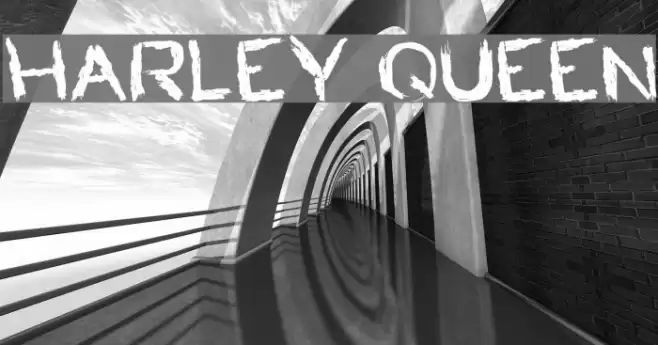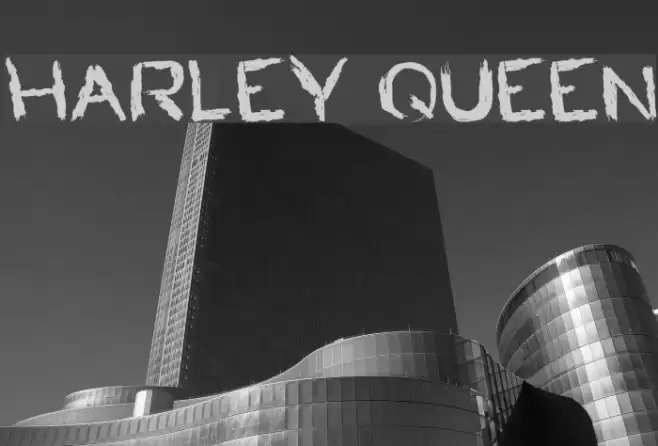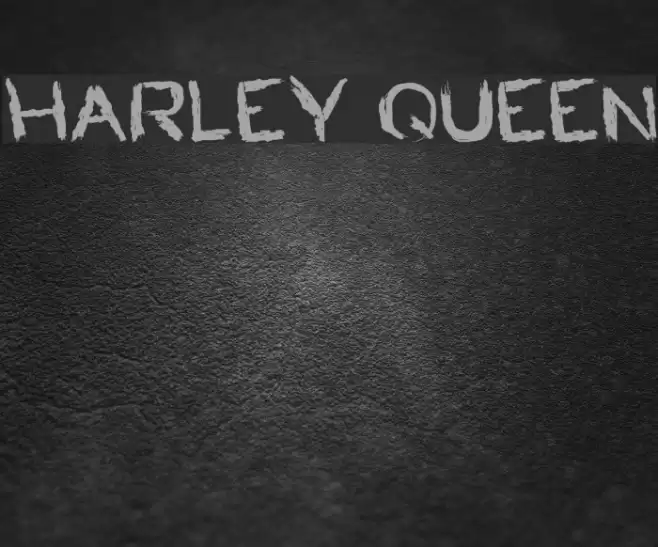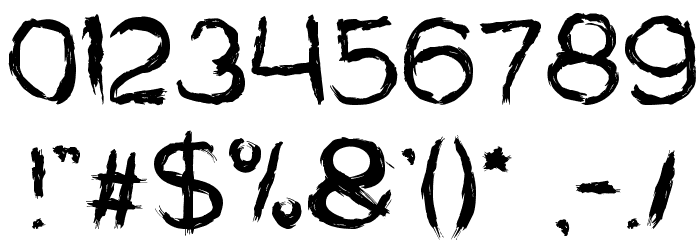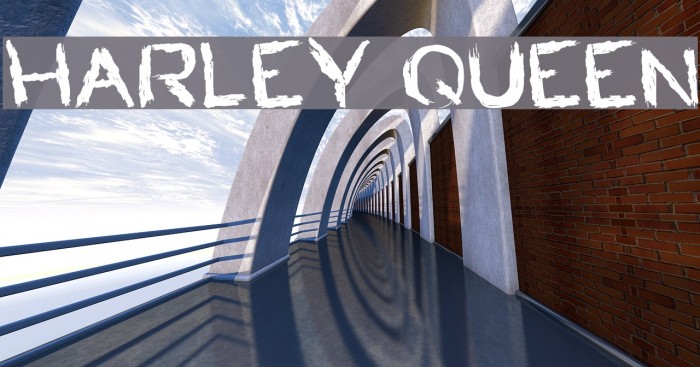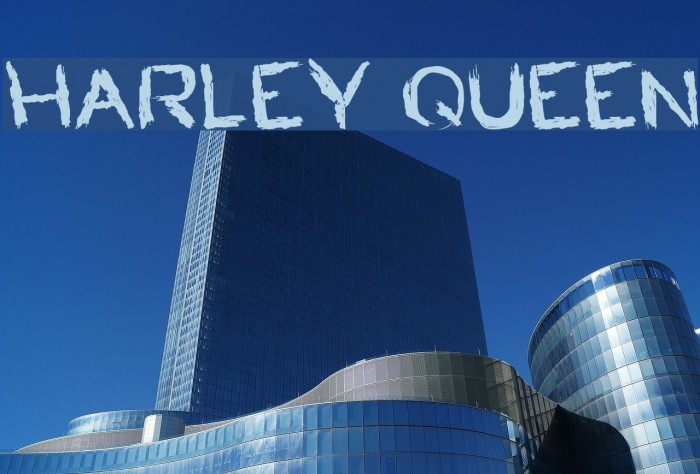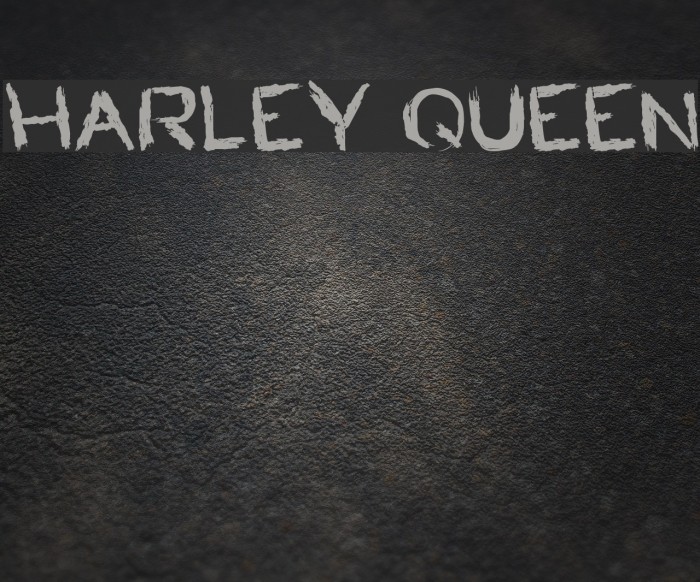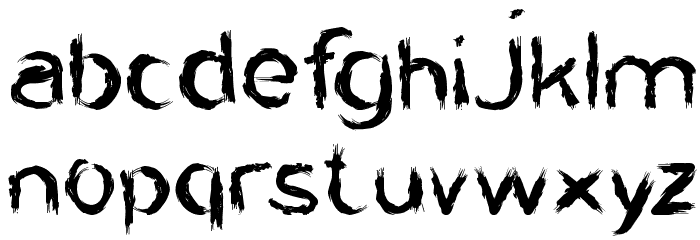
HARLEY QUEEN Font
HARLEY QUEEN Description
This font features a bold and rugged design, characterized by its brush-like strokes and uneven edges, giving it a raw and energetic appearance. The uppercase and lowercase letters maintain a consistent style, with each character exhibiting a hand-drawn quality that adds a sense of dynamism and movement. The numbers and special characters follow the same aesthetic, ensuring a cohesive look across all elements. This font's unique style makes it stand out, offering a visually striking option for projects that require a bold and artistic touch.
A bold, brush-stroke font with a rugged, hand-drawn appearance from Uncategorized fonts.
- Proposed Projects: Ideal for posters, album covers, branding, and any creative projects that require a bold, artistic touch.